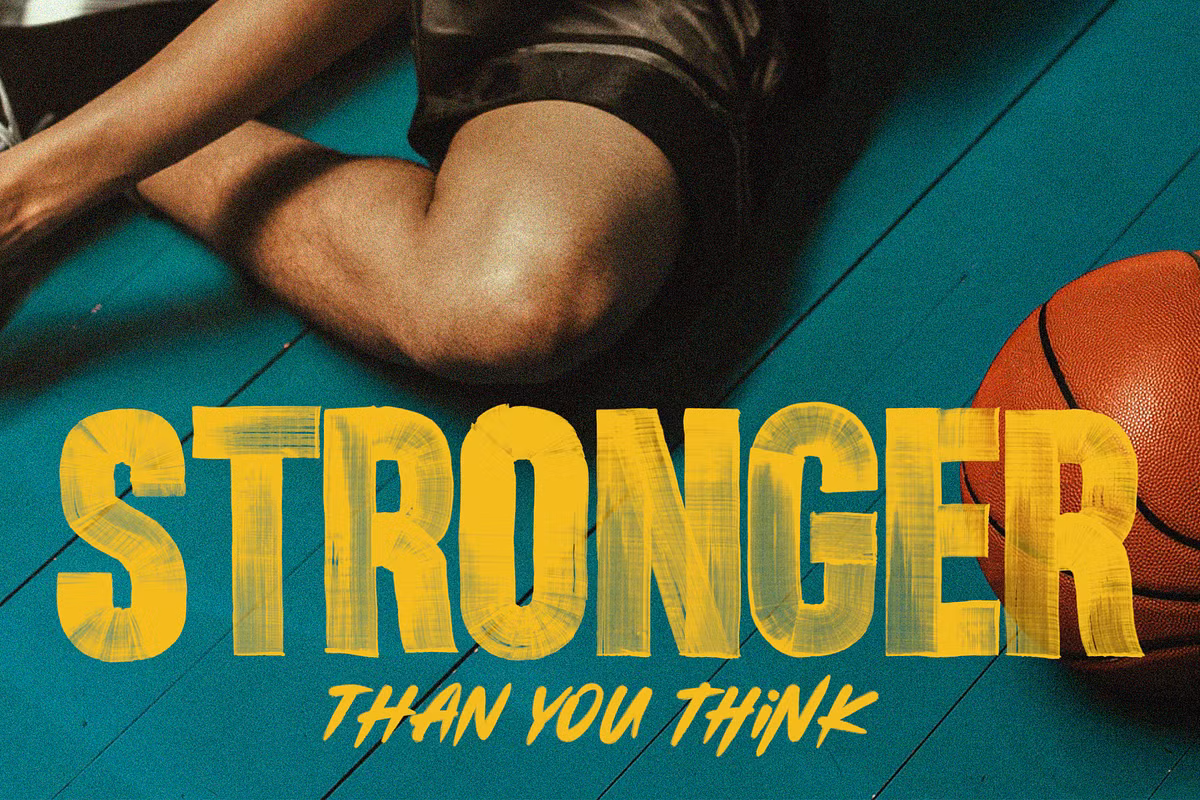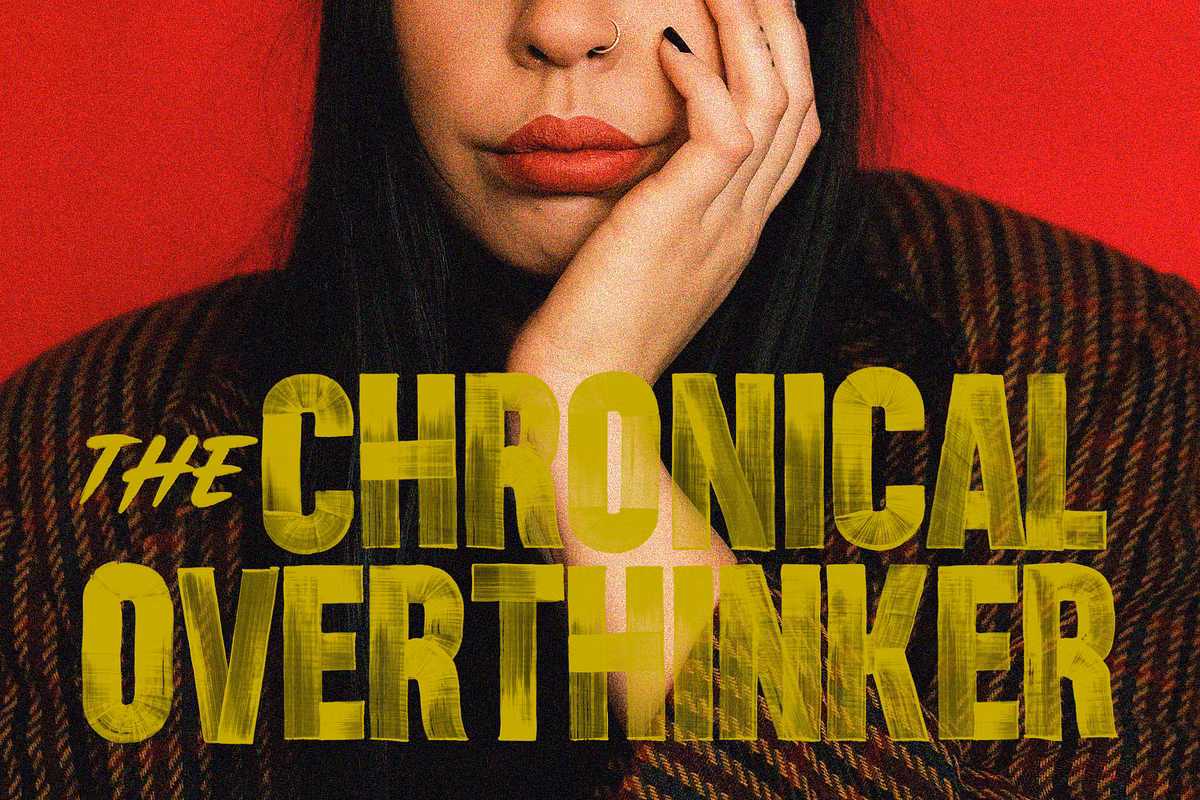
JUNO: Bold Hand-Painted Headliner Font with SVG & Regular Styles
Here is JUNO, a hand‑painted font made by ReveryWorks. The designers, at ReveryWorks painted each character in JUNO by hand so the letters have a texture that shows drag marks. I look at the texture and I feel that JUNO looks like a real brush stroke. JUNO lets you make powerful statements in any project. If you are working on a poster, a branding piece or a digital design you can choose JUNO to make the text stand out. JUNO is a way to add a feel to your work.
Design Style and Unique Features
The design of JUNO is one of a kind. The hand painted look of JUNO gives a touch. The hand painted look makes JUNO stand out from fonts. Each letter, in JUNO feels organic. The organic feel of JUNO adds warmth, to a design. The bold condensed style of JUNO makes the text easy to see and gives impact. The bold condensed style of JUNO works well for headlines, signs and other places where you need to draw attention. I enjoy using JUNO because the design feels alive.
One of the standout features of JUNO is the SVG font format. The SVG font format lets the letters keep detail and lets them grow or shrink without losing quality. The SVG font format gives flexibility that old fonts do not have. When I use JUNO I see that JUNO looks good at sizes and JUNO stays clear at sizes.
SVG vs. Regular Font Styles
Character Sets and Multi-Lingual Support
JUNO is made for versatility. I have tried JUNO and JUNO works with languages. JUNO includes a character set that supports languages so JUNO is a good choice, for international projects. The font has characters, including:
- À Ä Å Ã Æ
- Ç É Ê È Ë
- Í Î Ì Ï
- Ñ Ó Ô Ò Ö Õ Ø
- ß Š Û Ù Ü Ý Ÿ
I use the support to make designs that connect with an audience. I use the support to keep a look and feel across all my work.
Use Cases for JUNO
JUNO is very flexible. I have used JUNO in many of the design contexts. Juno works well. Here are some practical use cases:
- Branding: Use JUNO for logo design or brand materials to convey strength and uniqueness.
- Posters and Flyers: The bold look of JUNO makes a headline stand out. I use JUNO on a poster. The headline grabs attention. The bold look of JUNO catches the eye.
- Web Design: Put JUNO in website banners. In call, to action buttons. JUNO draws the eye. The visual hierarchy becomes clear.
- Merchandise: Use JUNO, on t‑shirts. Use JUNO on tote bags. Use JUNO on merchandise if you want to make a statement.
JUNO has a character and a unique design. I have used JUNO in my work. I see how JUNO catches the eye. JUNO is a choice, for any project that needs attention and creativity.
I have found that typography works best when you pair fonts well. The right pairing helps the design feel balanced. For JUNO pair JUNO, with typefaces to balance the boldness of JUNO. Here are some pairing suggestions:
- Sans-Serif Fonts: Use JUNO with plain sans-serif fonts, like Helvetica or Open Sans. JUNO then appears modern. The hand painted look of JUNO stands out.
- Serif Fonts: Combining JUNO with serif fonts like Georgia or Times New Roman can create a classic feel, perfect for sophisticated branding.
- Script Fonts: I often pair JUNO with script fonts, like Pacifico or Great Vibes to add a touch. The script fonts give the designs a vibe.
I often try experimenting with the combinations because the different combinations can give the results. I do not hesitate to explore the pairings that match your project needs.
JUNO is a hand painted headline font. JUNO gives a look to any design. JUNO comes with a set of characters and JUNO supports languages so you can use JUNO for projects that need different scripts. JUNO uses SVG technology. JUNO gives designers the tools they need to show creativity and to make statements in their work. I have used JUNO on a brand identity. I have used JUNO on flyers and, on web pages. Each time JUNO made the design stand out. JUNO works for brand identity for material for web content. JUNO can make your typography better. I embrace the boldness of JUNO. I let the boldness of JUNO make my designs speak loud.